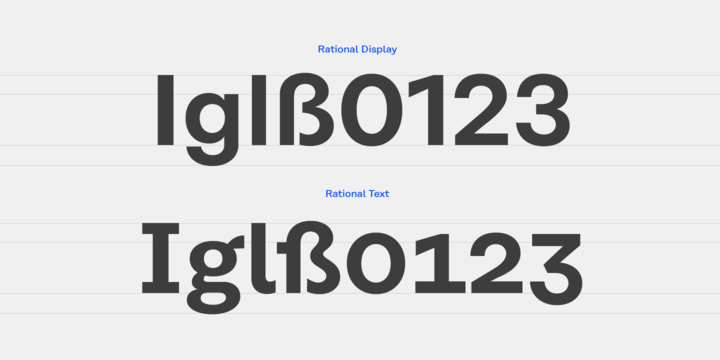
Rational Font
Rational is a contemporary representative of the Grotesk genre inspired by drawings dating back to the early 20th century. It is a highly utilitarian family focusing on clarity and simplicity by approaching the design with a strong modernist fused attitude.